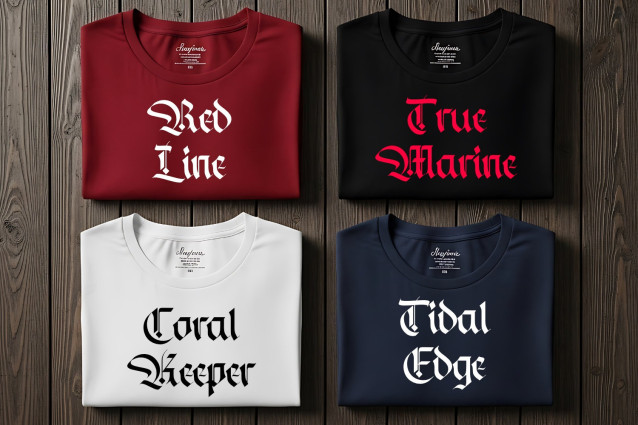
Quirlend Font
Quirlend Font is a majestic Blackletter typeface that merges the grandeur of gothic calligraphy with a sharp, modern edge. Designed for impact, this font commands attention and injects an unparalleled sense of mystique and luxury into any project